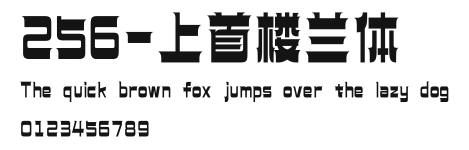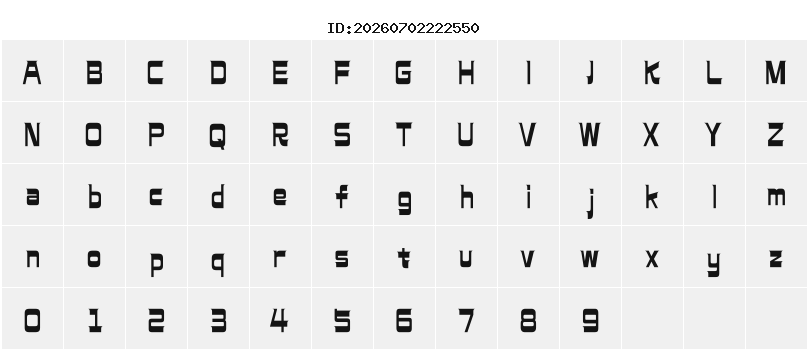
256-上首楼兰体 Preview
• Font Name: 256-上首楼兰体
• Full Font Name: 256-上首楼兰体
256-上首楼兰体.ttf is a modern, elegant sans-serif font designed for ultimate readability and visual harmony. Perfect for branding, headlines, web design, and print materials.